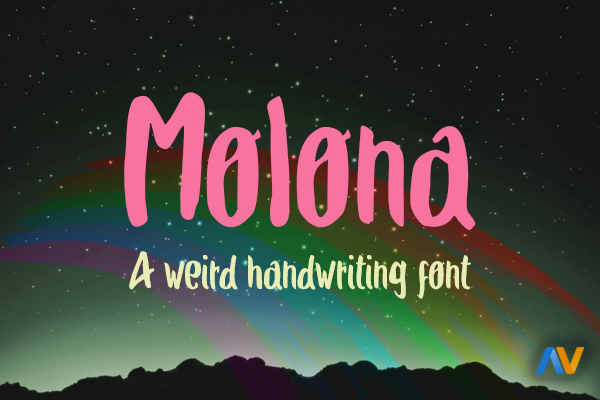
Molona
A weird handwriting font for a design purposes like simulated handwriting words or something similar. Molona is a font created by Alberto Villanueva 2016. Added web fonts.